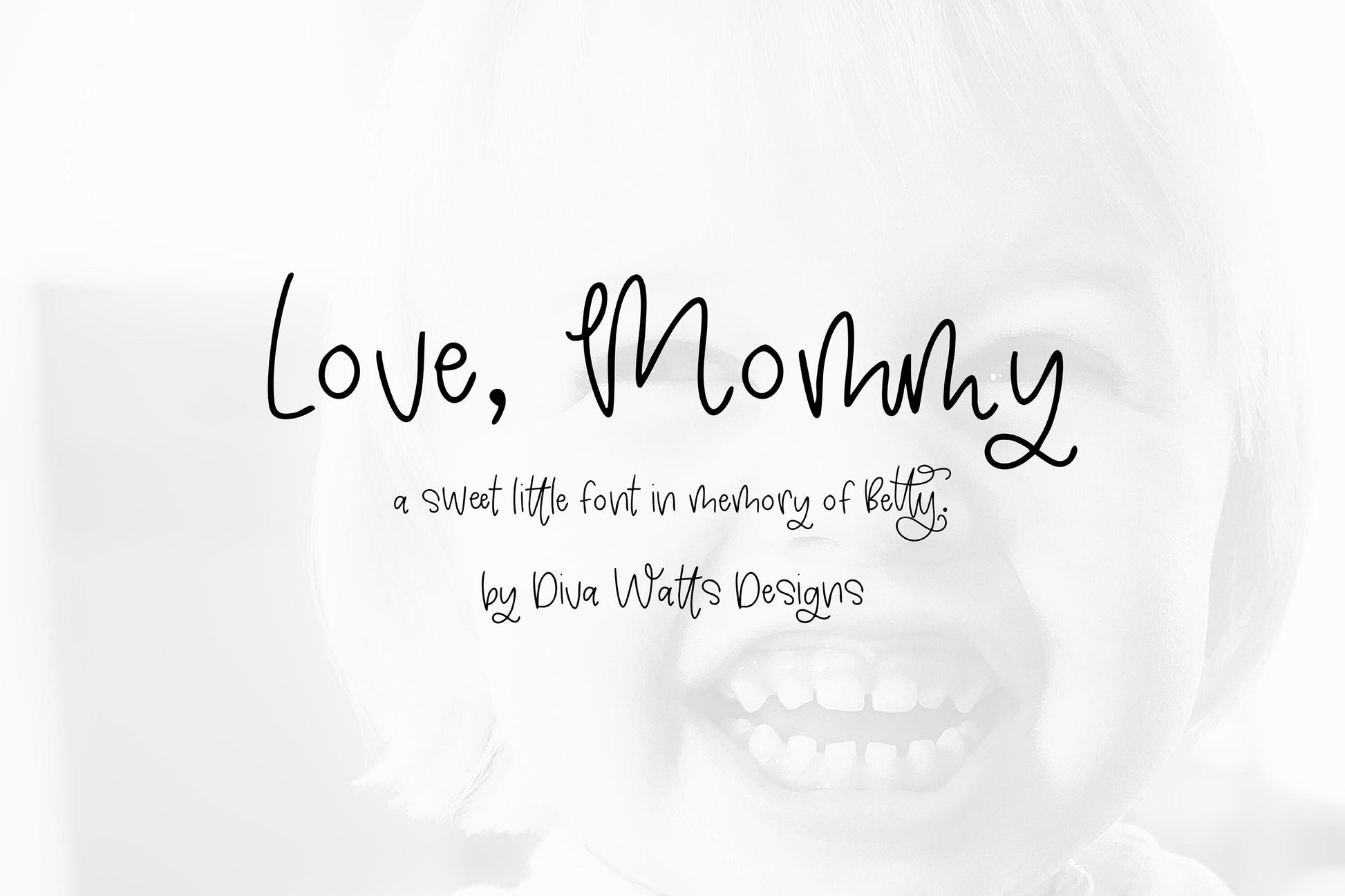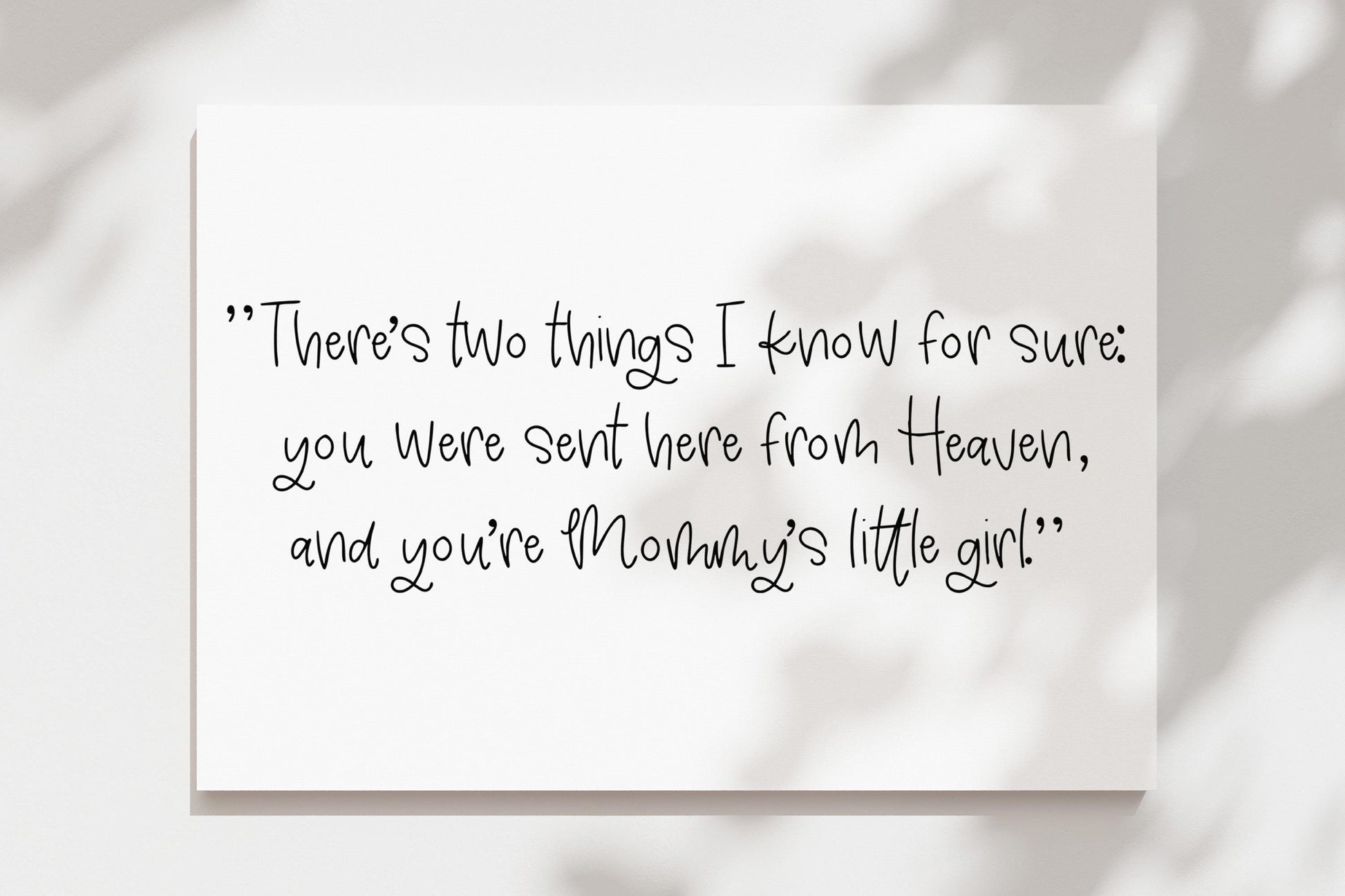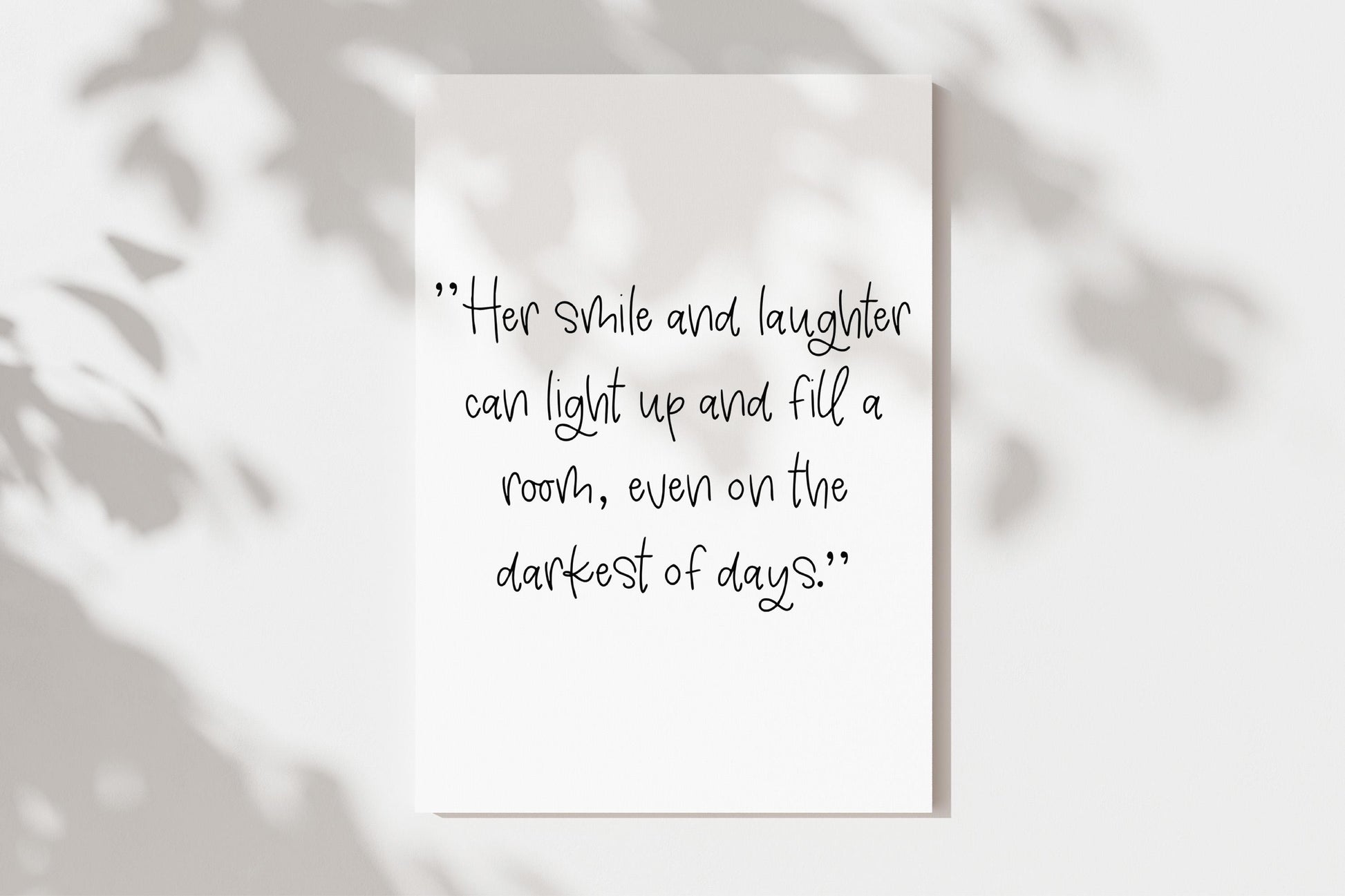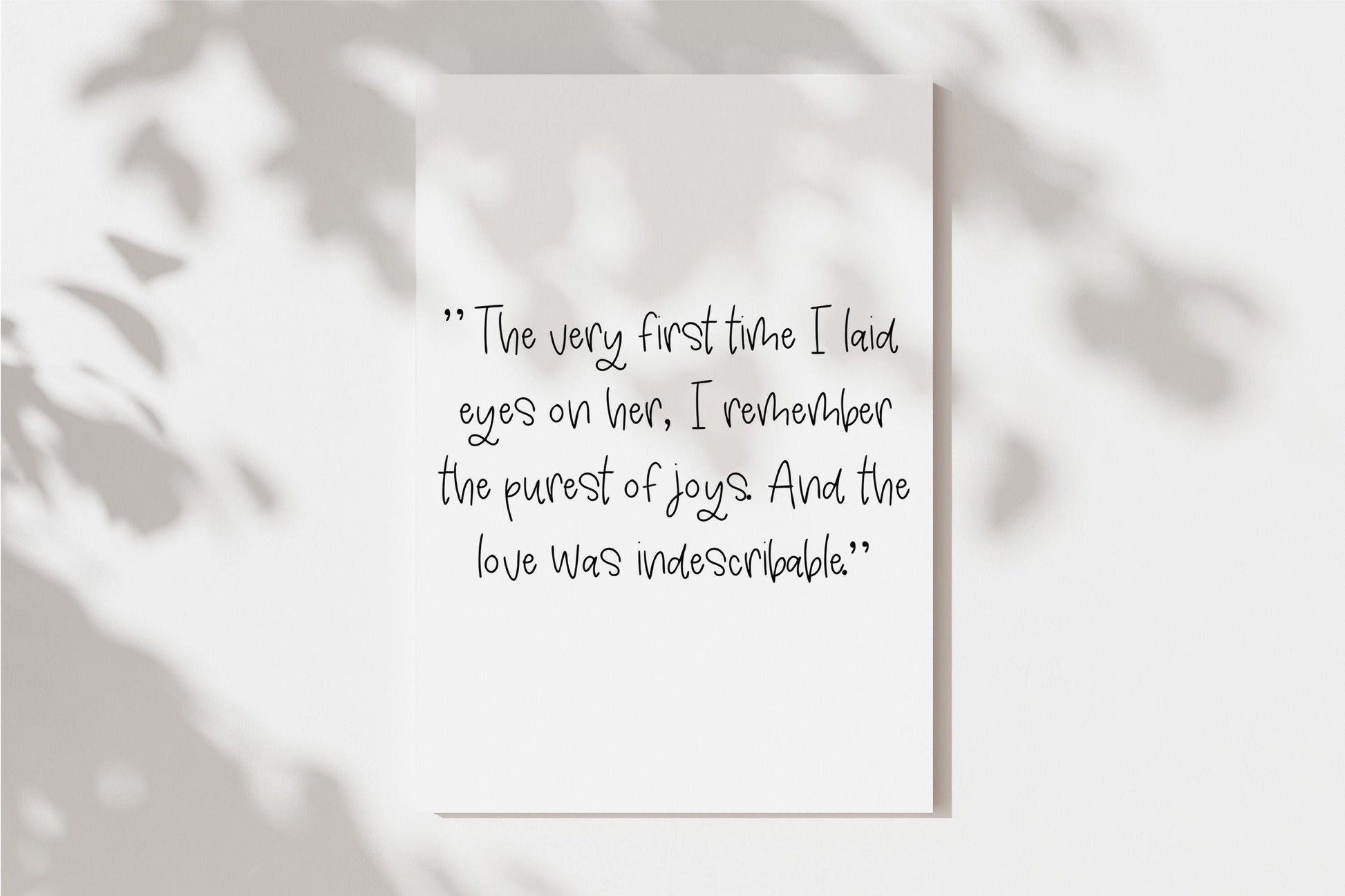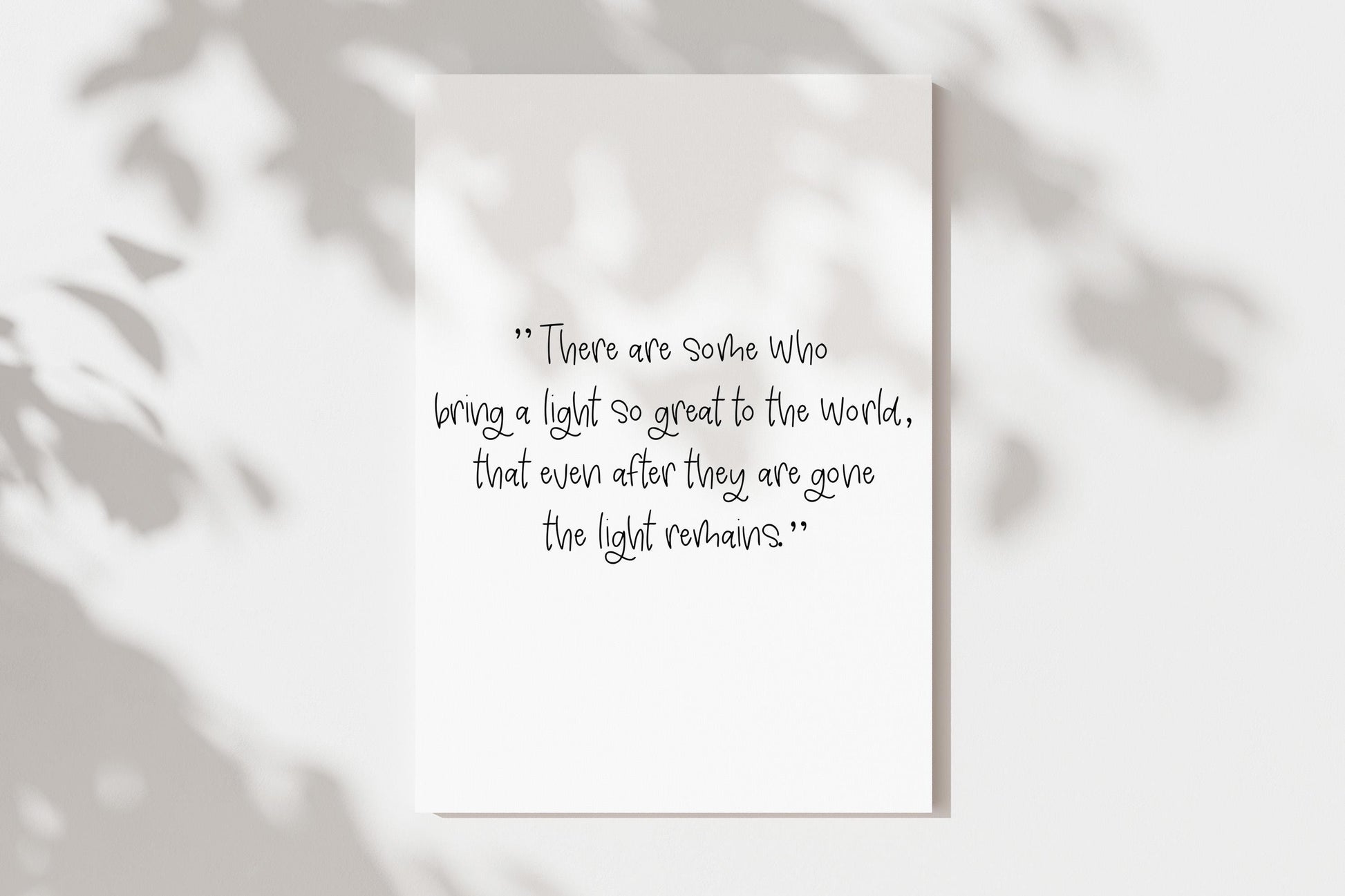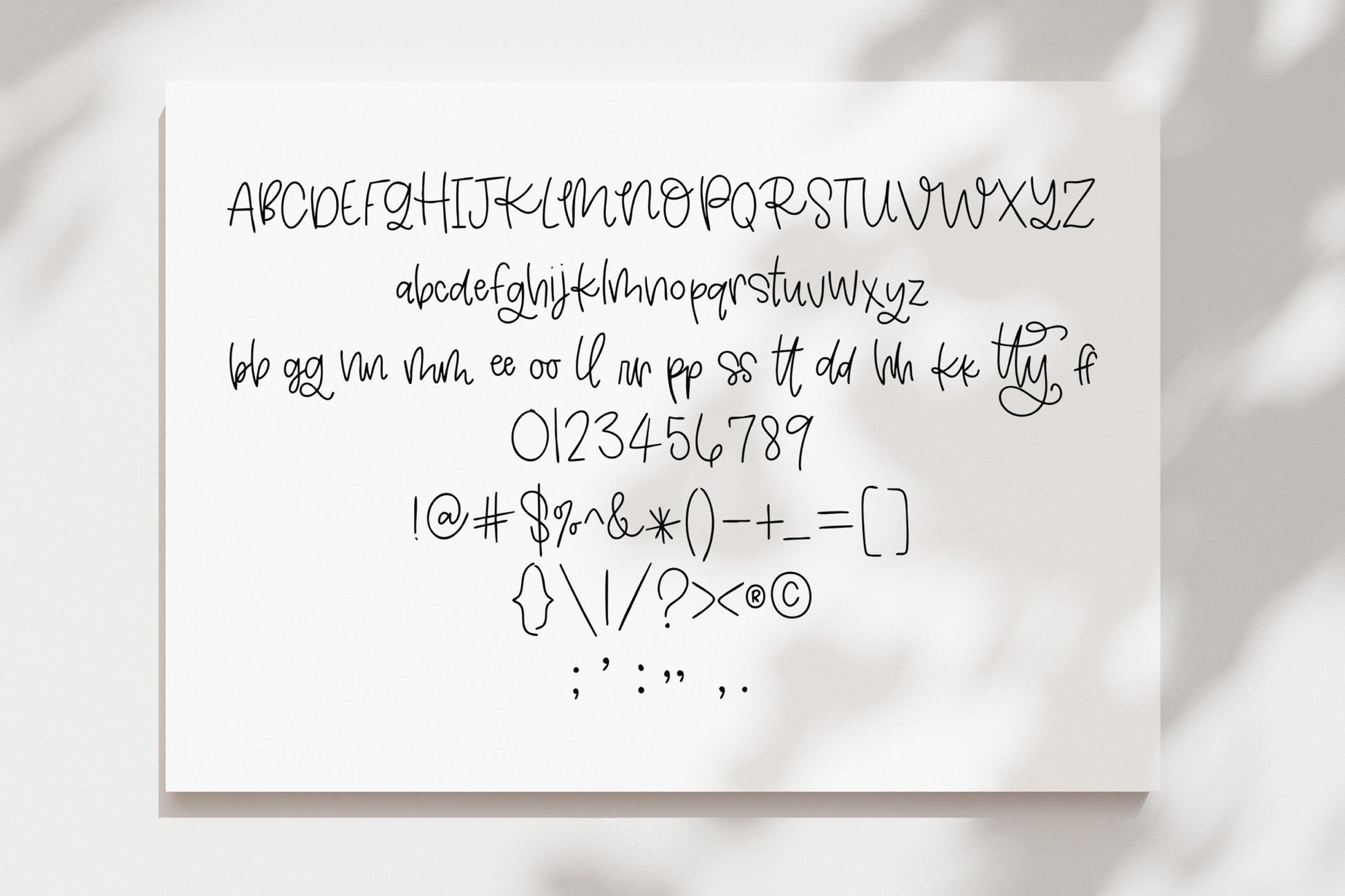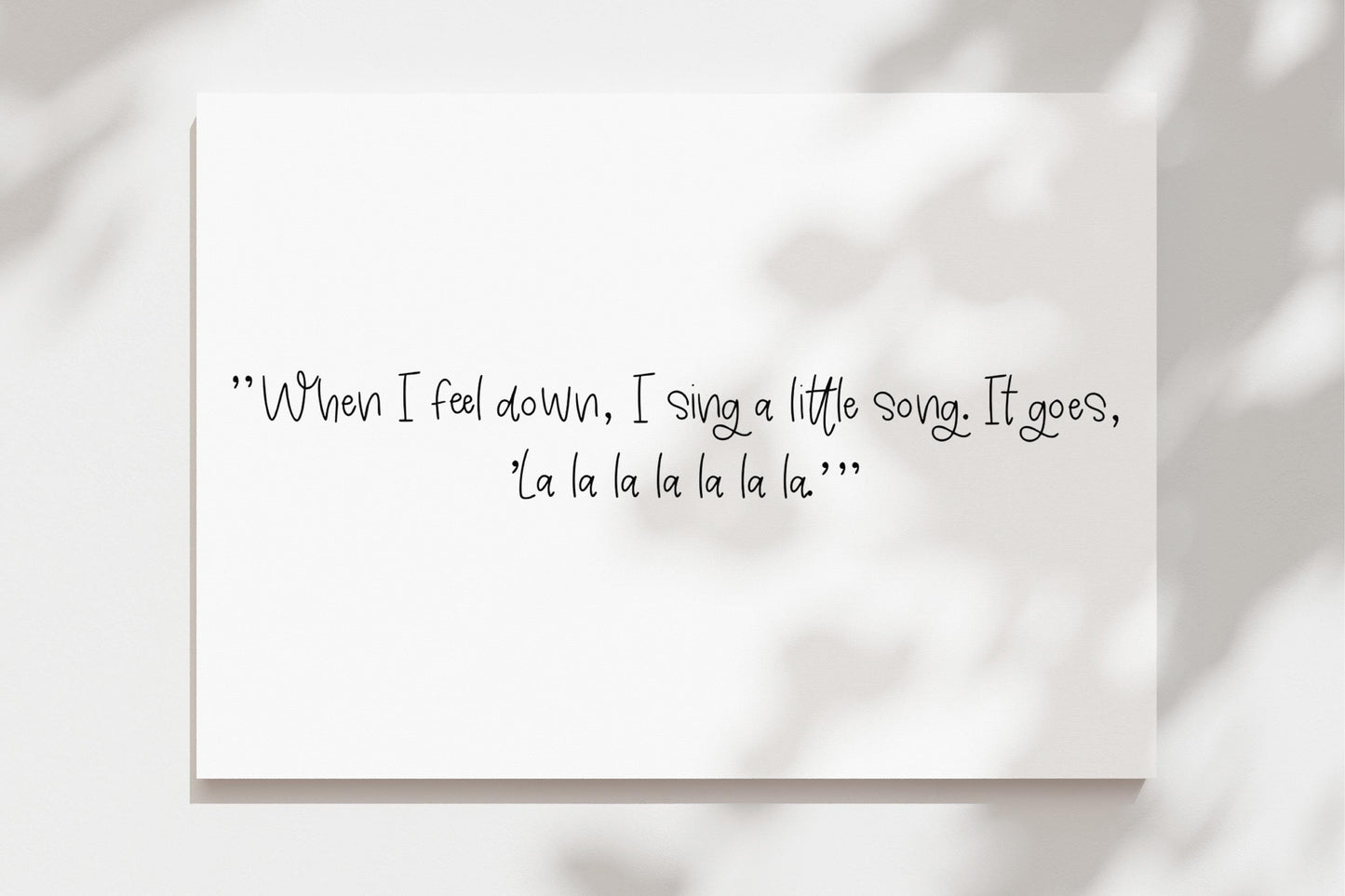
Love Mommy Font | Handwritten Script Font for Sublimation, Logos, Baby Showers, Cards, Cricut Fonts, Cute Planner Font, Sweet Font
Love, Mommy is a sweet and whimsical handwritten script font designed to add warmth, softness, and personality to your creative projects. Its playful strokes and gentle flow make it perfect for baby shower invites, nursery prints, custom sublimation mugs, Cricut crafts, branding, planner headers, and more.
This font was lovingly created as a tribute to my daughter, Betty and to motherhood and the magic of little moments. It’s soft, personal, and packed with charm—making it a go-to font for crafters, designers, and creators who want their words to feel like a hug.
✔ Uppercase + lowercase characters
✔ Numbers + punctuation
✔ Bonus ligatures (bb, gg, nn, oo, ll, pp, ss, tt, dd, hh, kk, ff, tty)
✨ Use this font when your project needs heart, softness, and a gentle touch.